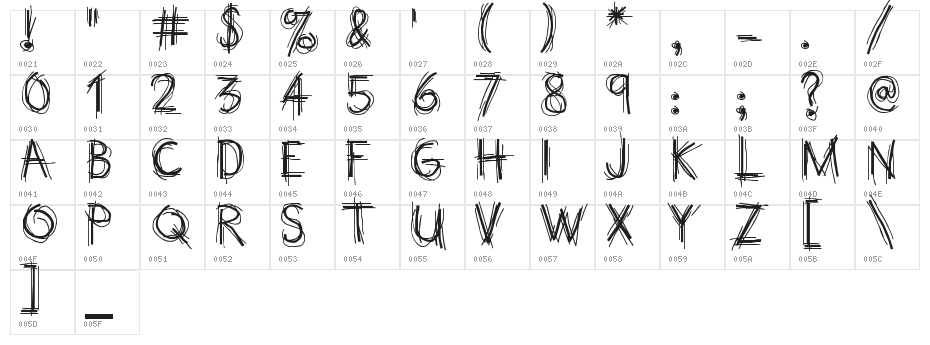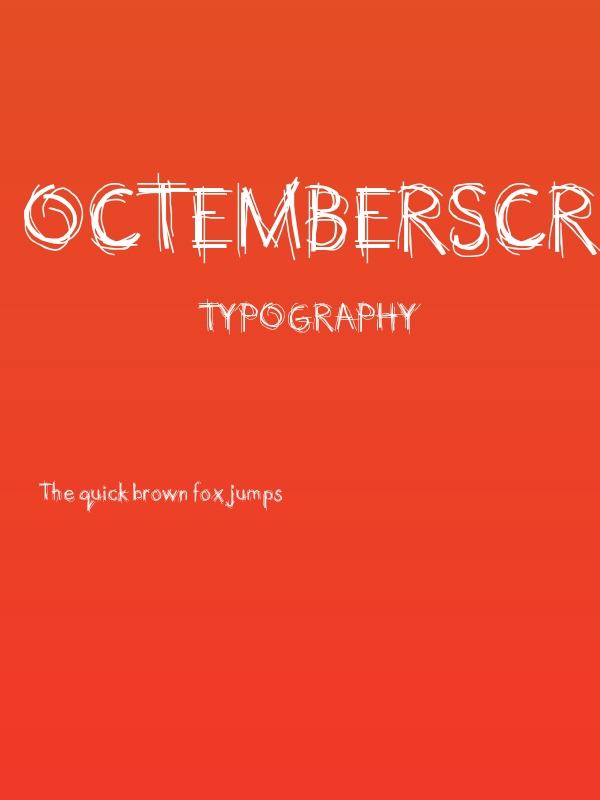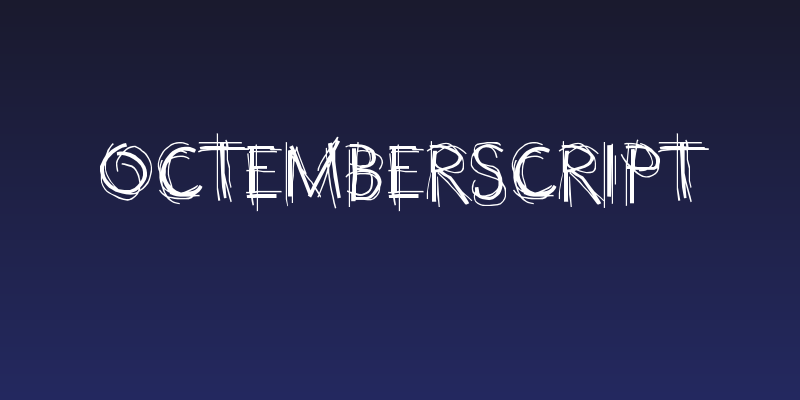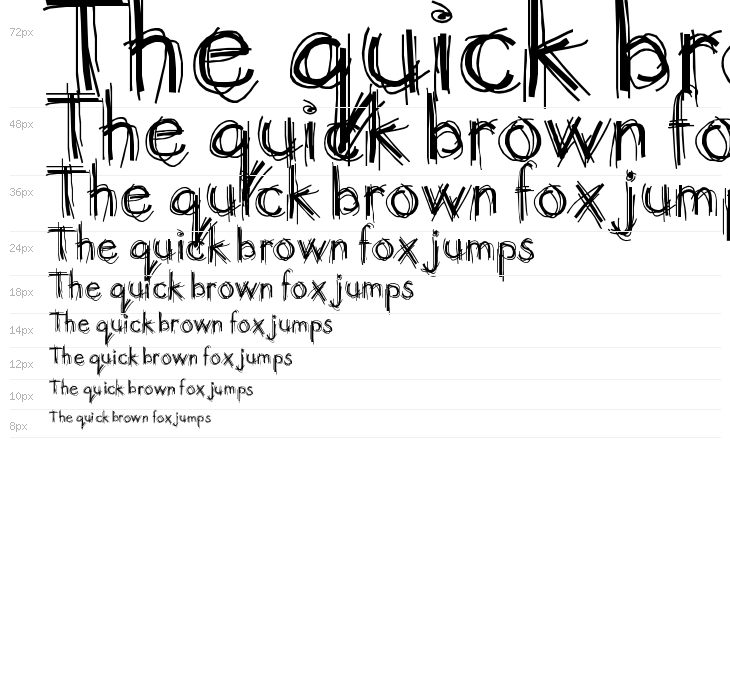
OctemberScript Font
OctemberScript Description
This font features a highly decorative and artistic style, characterized by its sketch-like, hand-drawn appearance. The strokes are uneven and dynamic, giving each character a unique and playful look. The uppercase and lowercase letters maintain a consistent style, with exaggerated curves and angles that add to the whimsical nature of the font. Numbers and special characters are equally expressive, ensuring a cohesive design throughout. This font is ideal for creative projects that require a bold and artistic touch.
| Use Case | Logos, Posters, Creative projects |
| Proposed Projects | Ideal for artistic projects, children's book covers, playful branding, and creative posters. |